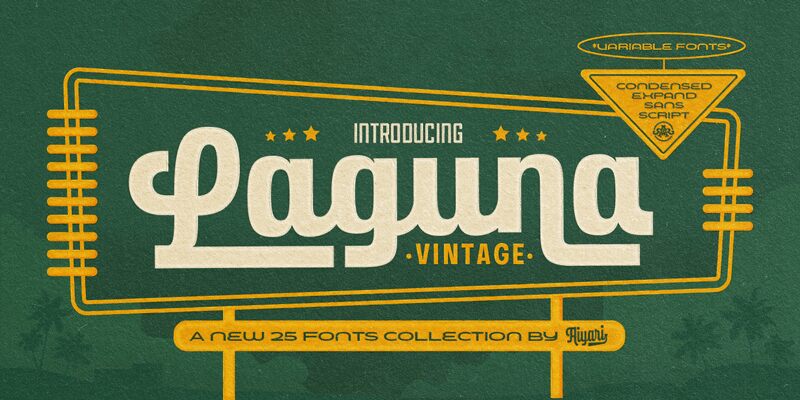
Introducing Laguna Vintage Font Collection. Inspired from American motor inn signs and vintage restaurant signs in 50s-70s. Laguna comes with open type features such stylistic alternates, stylistic sets, contextual alternates & ligatures. Also available in variable font format. To perfecting your design Laguna Font Collection also available with graphic extras :)
Laguna Font Collection is best uses for headings, Logo type, quotes, apparel design, invitations, flyer, poster, greeting cards, product packaging, book cover, printed quotes, cover album, movie, etc